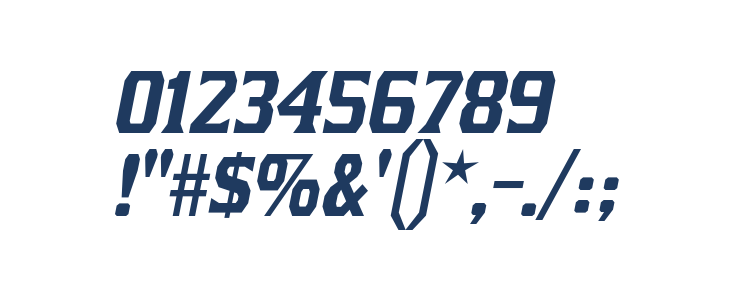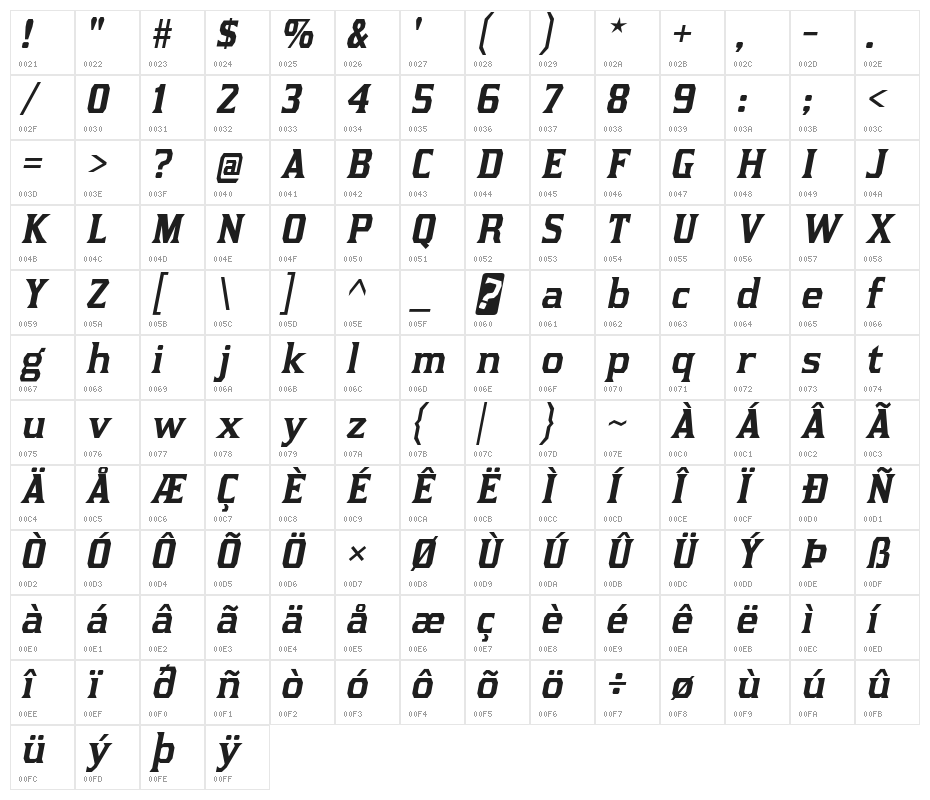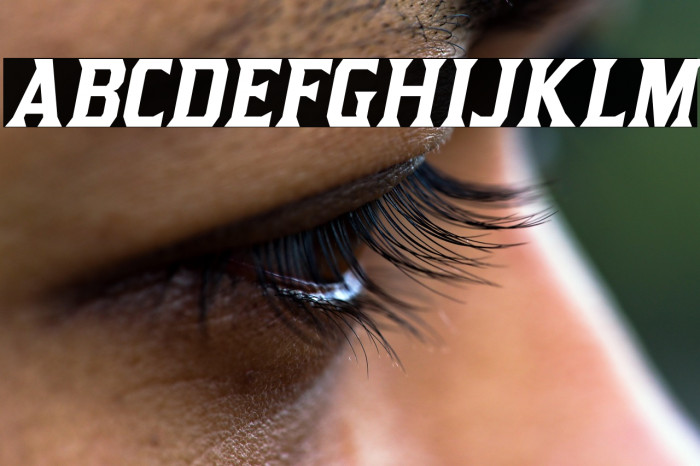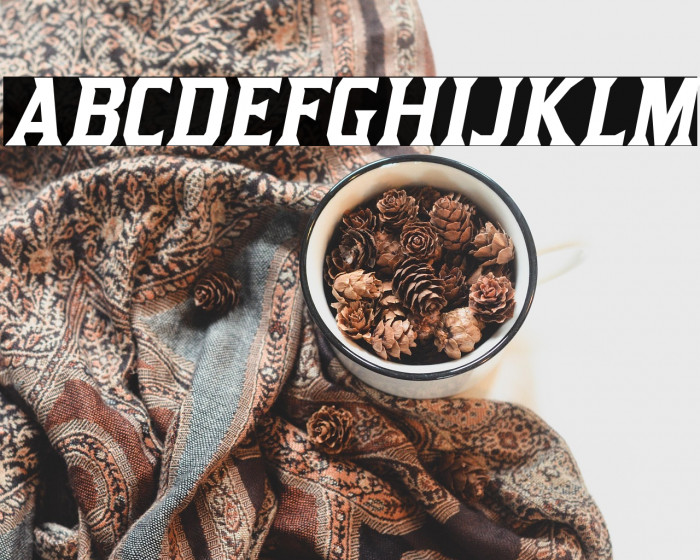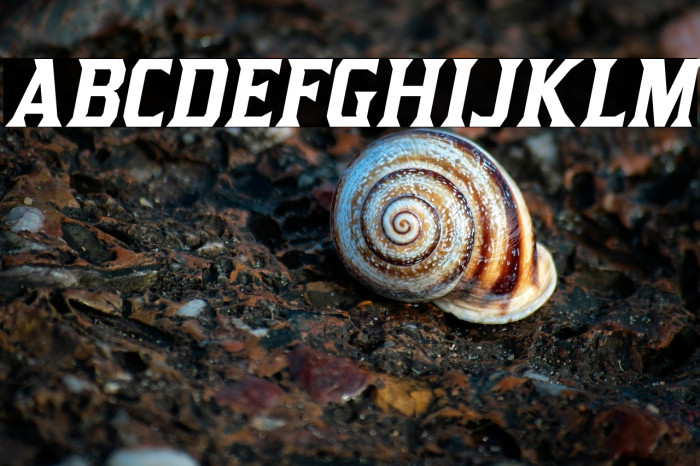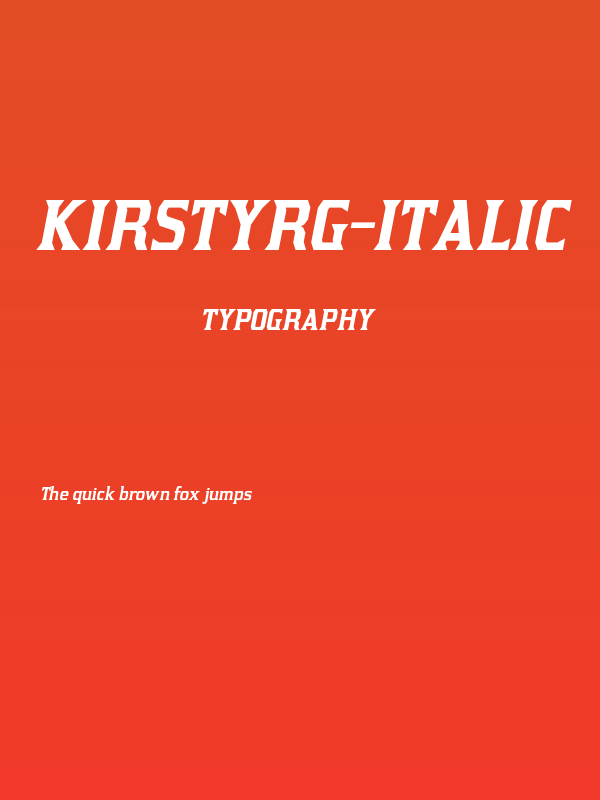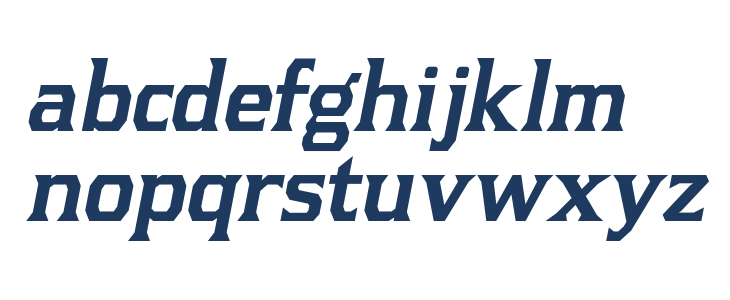
KirstyRg-Italic Font
KirstyRg-Italic Description
This font features a bold, italicized style with sharp, angular edges that convey a sense of strength and dynamism. The uppercase letters are particularly striking, with a forward-leaning stance that suggests movement and speed. The lowercase letters maintain the same angular aesthetic, ensuring consistency across the typeface. Numbers and special characters are designed with the same attention to detail, making them suitable for a variety of uses. The overall design is modern and edgy, making it ideal for projects that require a bold statement.
| Proposed Projects | Ideal for sports branding, dynamic posters, edgy advertisements, and modern logo designs. |